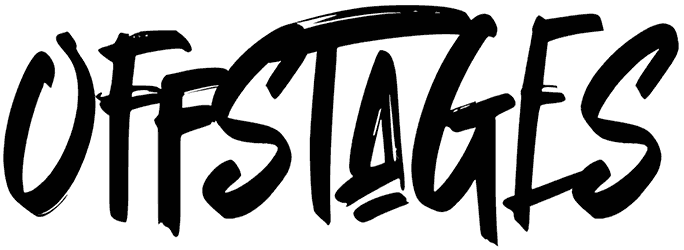
Offstages Font
Offstages font is like fresh air for typography enthusiasts and can open new creative horizons. This brush font has bold strokes that challenge legibility and give any design project a sense of whimsy.
The hand-drawn feeling of this script font is excellent for creating a personal touch and can play its role in attracting the audience in the absence of small letters and some compelling numbers. If you still need to design posters, social media posts, or apparel, try Offstages.